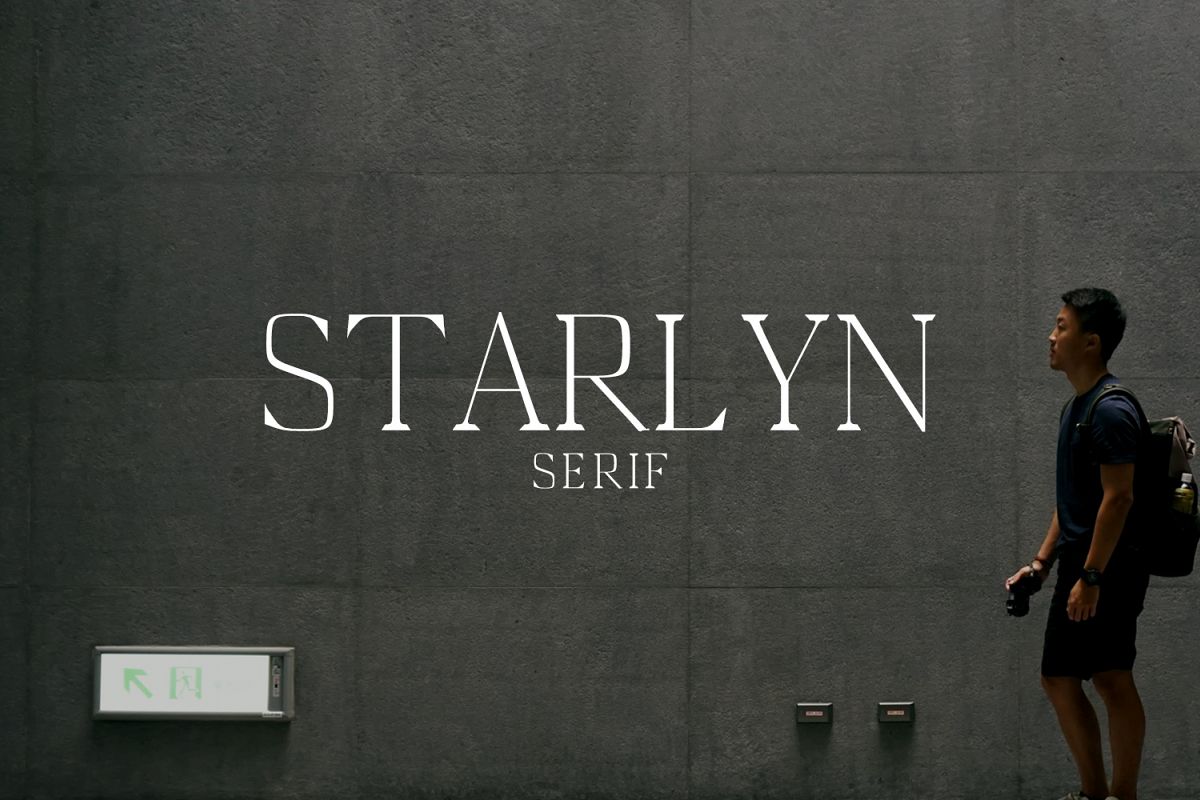
Starlyn Serif Font Family
Starlyn Serif Font Family is decorative and beautiful serif font family of 5 weights and it features unique and modern serif look and feel.Perfect for gorgeous logos & titles, layouts & content, or large & small scale, It looks gorgeous in all caps with a wide-set spacing if you want to try a classy look, or beautiful on its own in capital and lowercase letters for something completely timeless.Included Features: